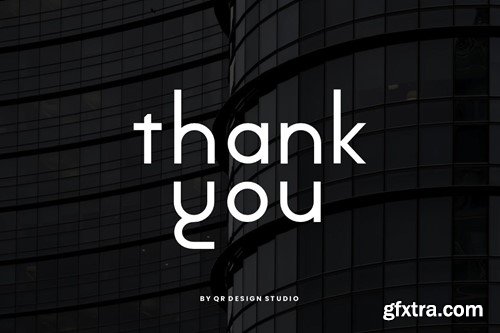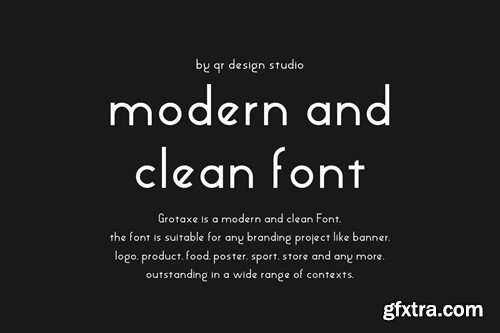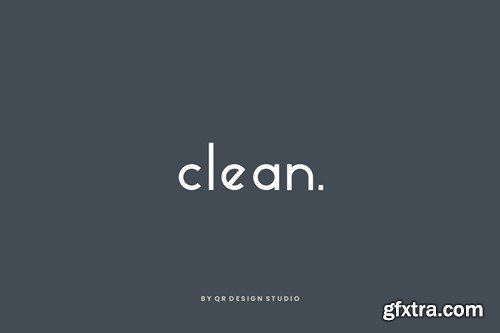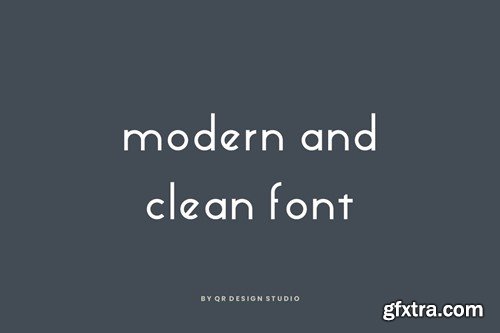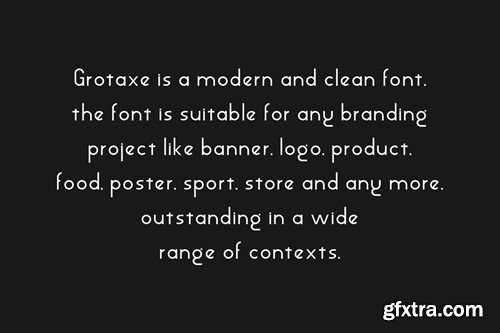
Grotaxe - Minimal & Grotesk Font V8LZYYZ
Grotaxe Font is a sans serif and authentic display font.
The font is suitable for any branding project like poster, logo, sport, and many more.
Outstanding in a wide range of contexts.